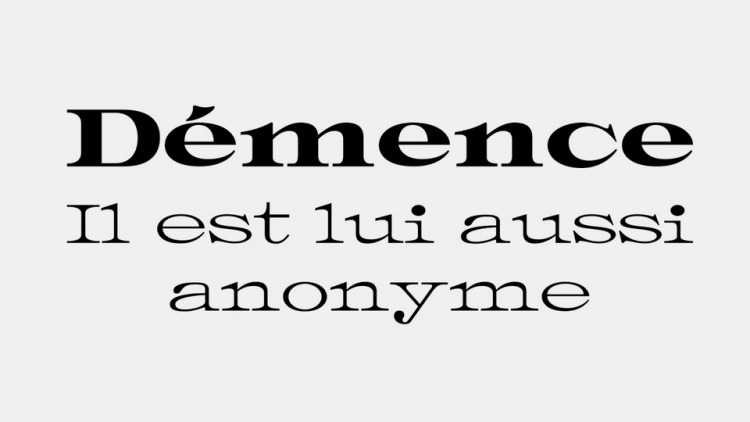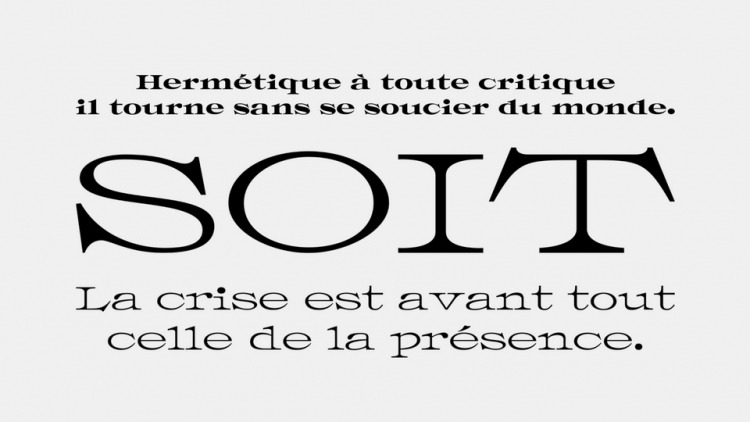
Destra Serif Font
This is stylish and elegant display serif typeface with beautiful look. It’s a serif typeface, a revival of a French’s booklet about car from the early XX’s century. Wide faces were used to create a feeling of luxury and elegance.
With its sharp and high contrast look, Destra font is ideal for editorial use, posters, branding and magazines.